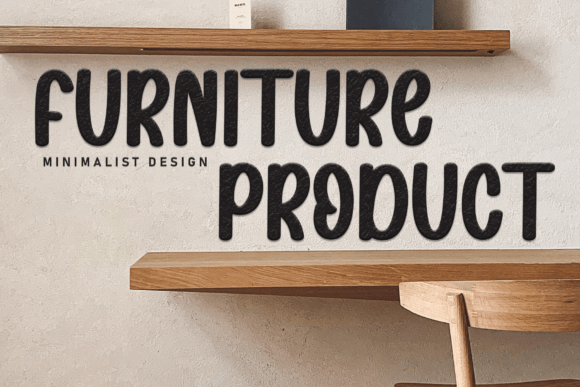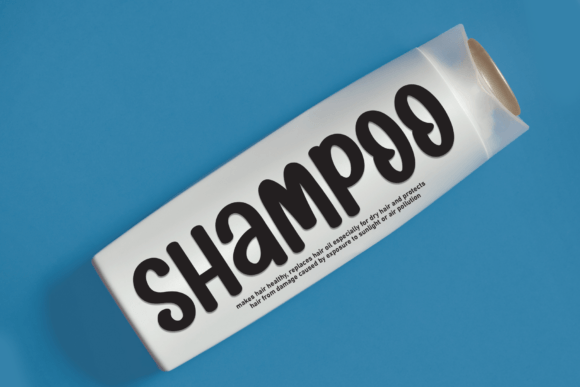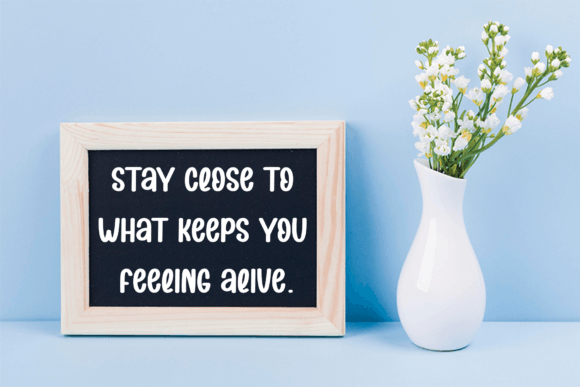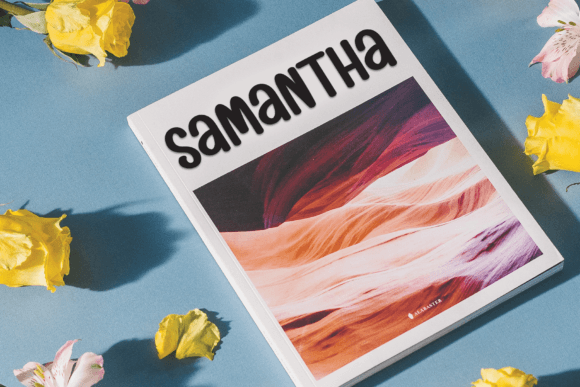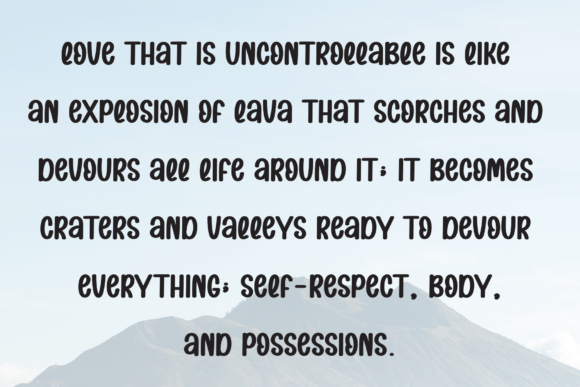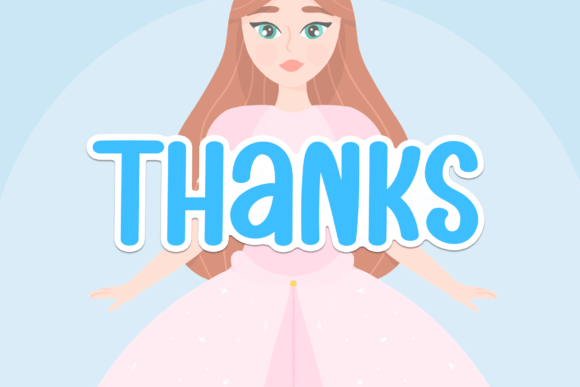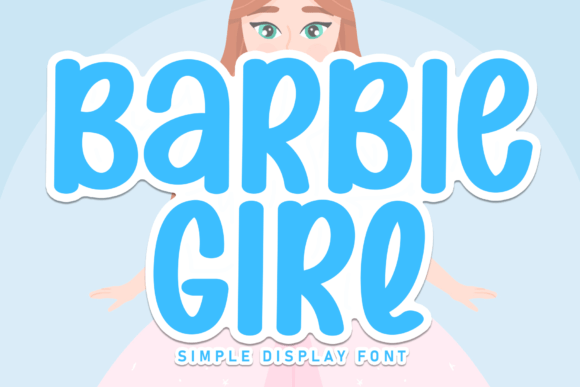
Introducing the Barbie Girl Font: Elevate Your Designs with a Touch of Elegance
Are you a designer, crafter, or DIY enthusiast looking for a font that can add a touch of elegance and sophistication to your projects? Look no further than the Barbie Girl Font! This stunning font is perfect for creating beautiful wall displays, wedding invitations, social media post logos, advertisements, product packaging, and more.
What Makes the Barbie Girl Font Special?
The Barbie Girl Font is a unique and creative font that is designed to give you an extraordinary experience. With its latest style letters, this font is perfect for anyone who wants to add a touch of glamour and sophistication to their designs. Whether you’re working on a wedding invitation, a product label, or a social media post, this font is sure to impress.
Key Features of the Barbie Girl Font
Here are some of the key features that make the Barbie Girl Font stand out:
The Barbie Girl Font is perfect for a wide range of design projects, including:
- Wall displays: Create stunning wall displays with this elegant font.
- Wedding invitations: Add a touch of sophistication to your wedding invitations with this beautiful font.
- Social media post logos: Create eye-catching social media post logos that will grab attention.
- Advertisements: Use this font to create stunning advertisements that will leave a lasting impression.
- Product packaging: Elevate your product packaging with this elegant font.
- Product designs: Add a touch of glamour to your product designs with this stunning font.
- Labels: Create beautiful labels with this elegant font.
- Photography: Use this font to add a touch of sophistication to your photography.
- Watermarks: Create stunning watermarks with this beautiful font.
- Invitations: Create elegant invitations for any occasion.
- Stationery: Add a touch of elegance to your stationery with this stunning font.